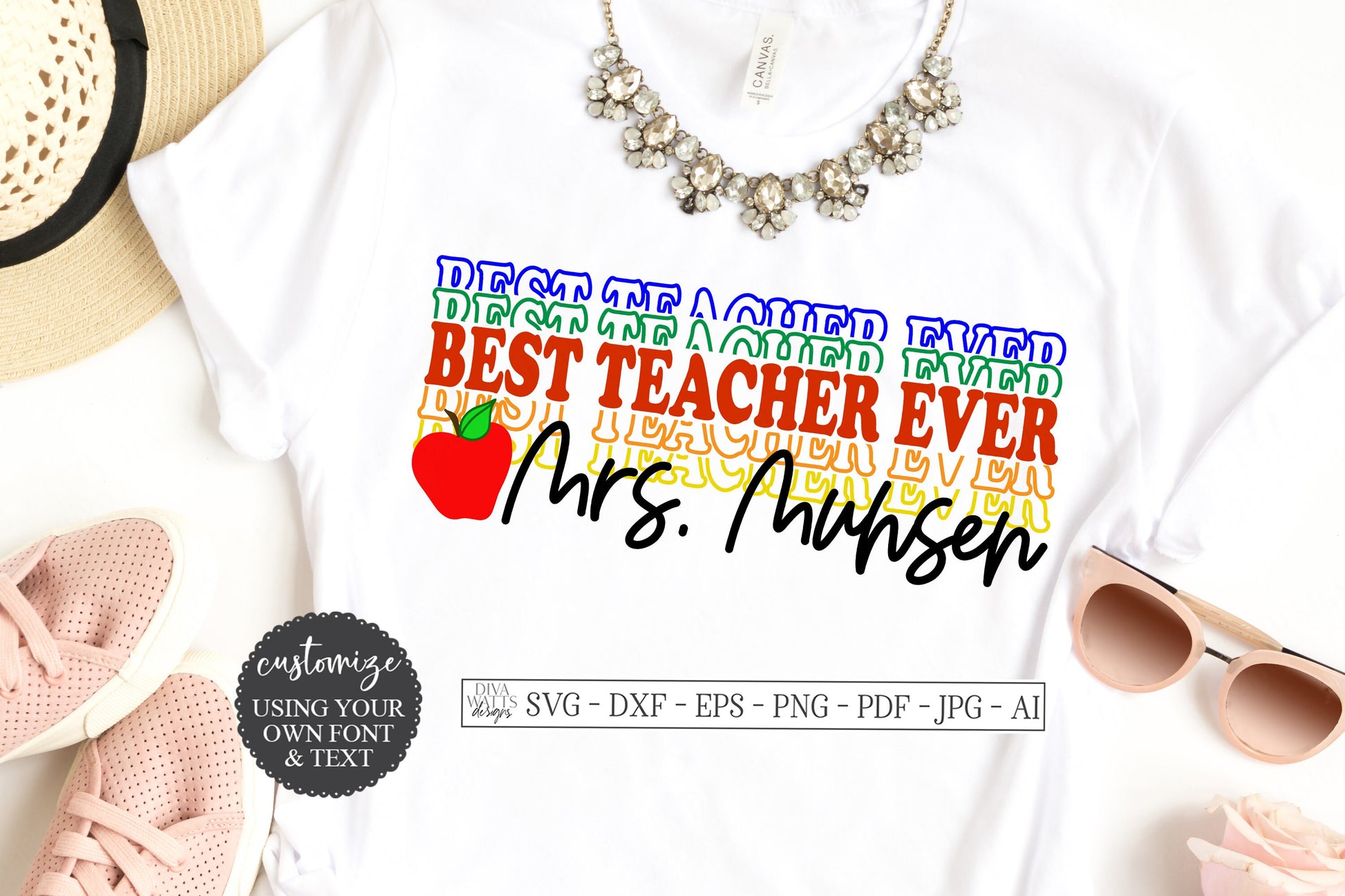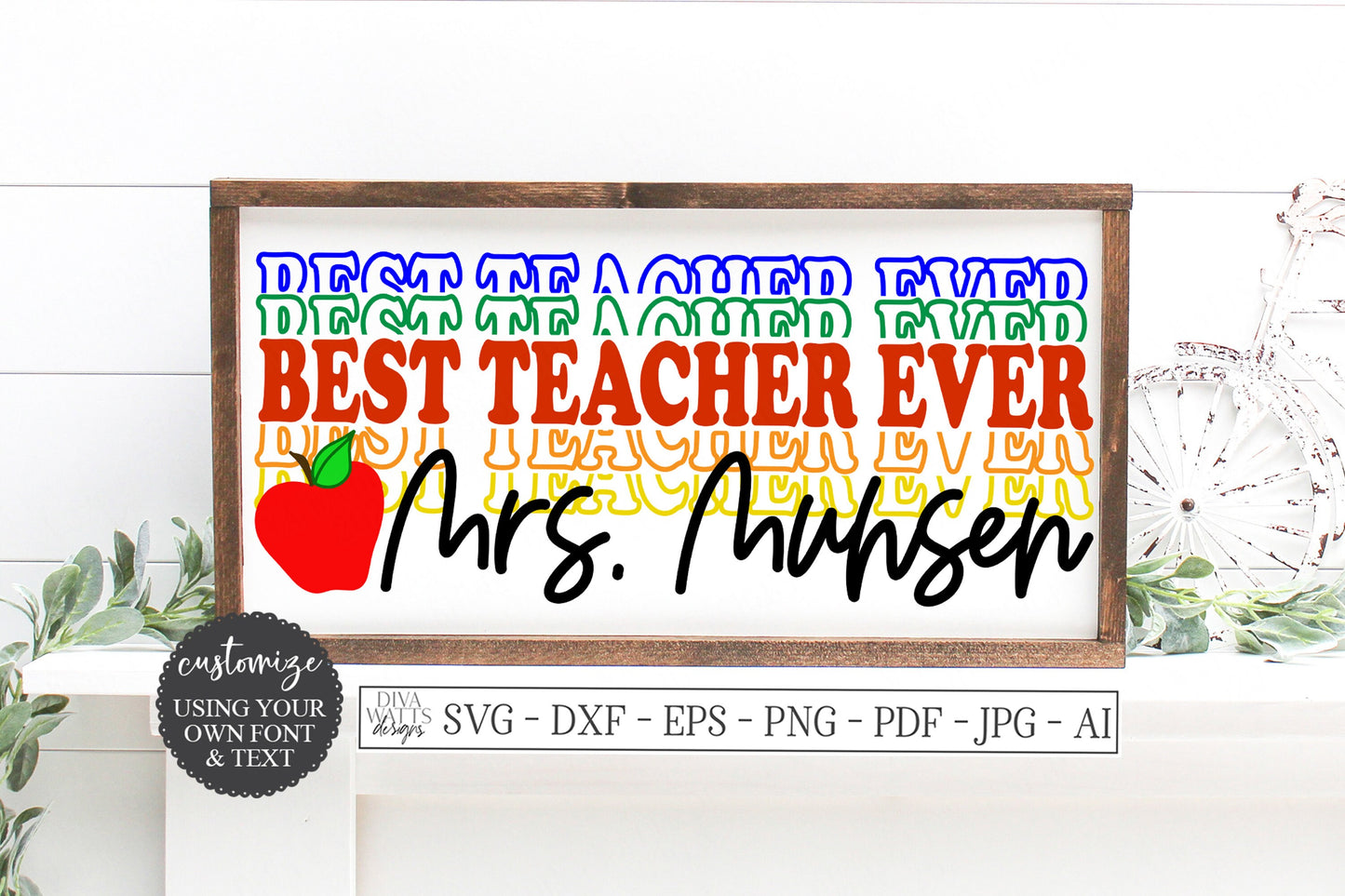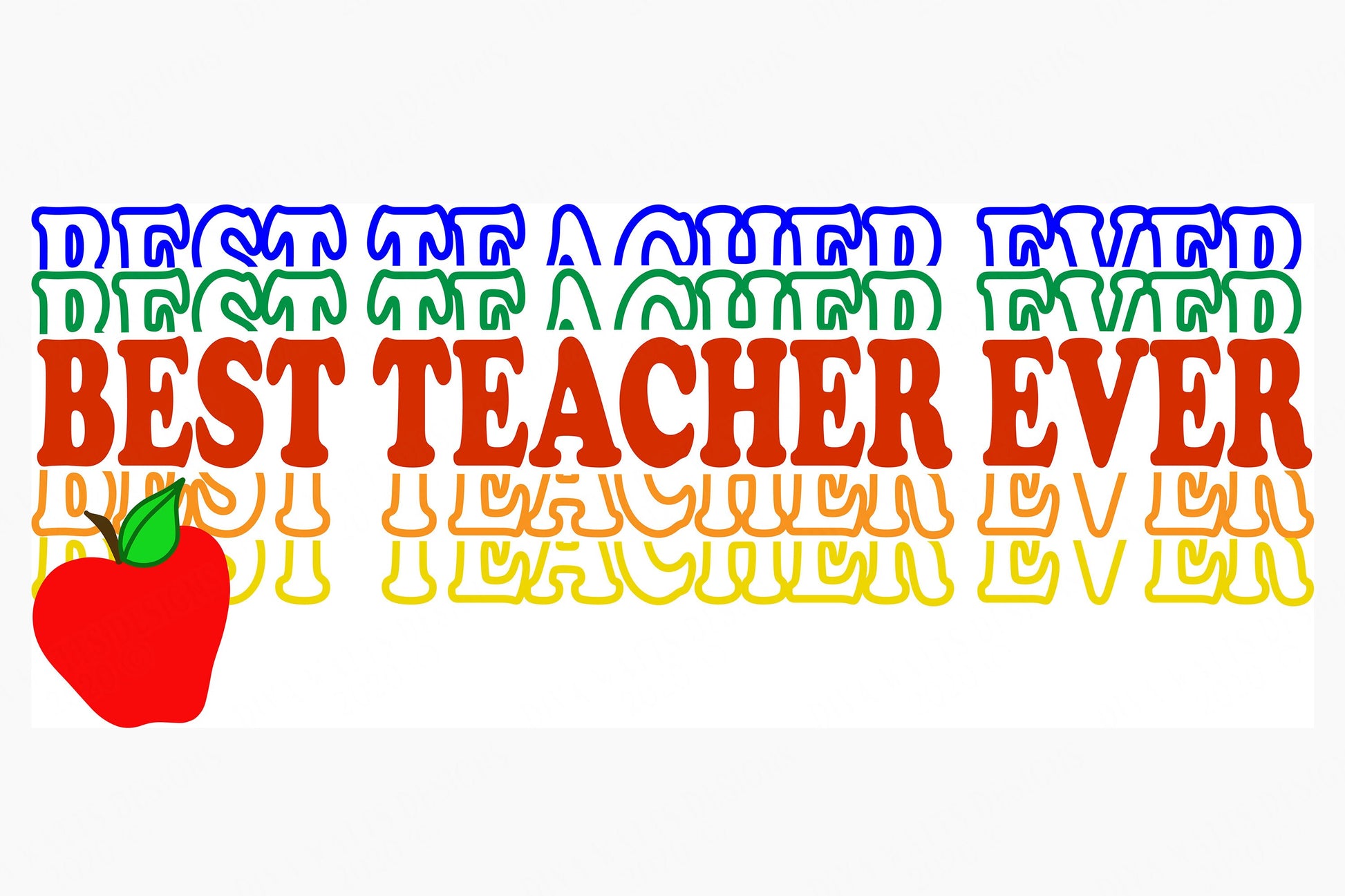
Best Teacher Ever
This design features a stacked/mirrored font where when cutting using the svg or eps you can cut each row different colors.
Includes a cute hand drawn apple and a space perfect to layer your favorite teacher's name.
Want to create the same look? For this designs example name I used the extremely talented KA Designs font "Ladybug". You can find the font here on Etsy: https://www.etsy.com/listing/675555218/ladybug-font-a-handwritten-script-font?ga_order=most_relevant&ga_search_type=all&ga_view_type=gallery&ga_search_query=ladybug+font&ref=sr_gallery-1-1&organic_search_click=1